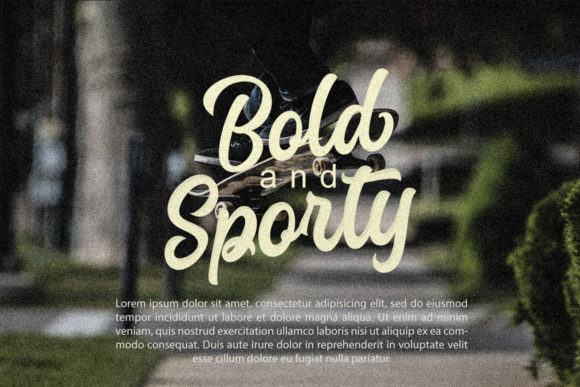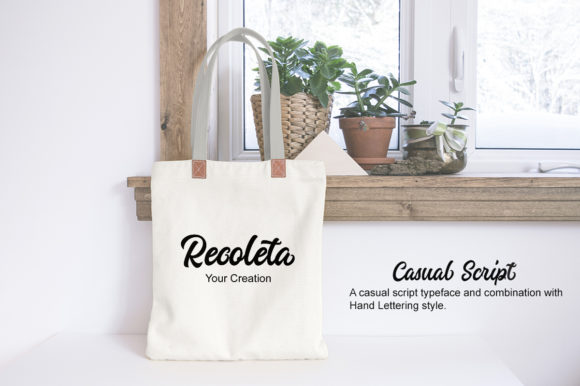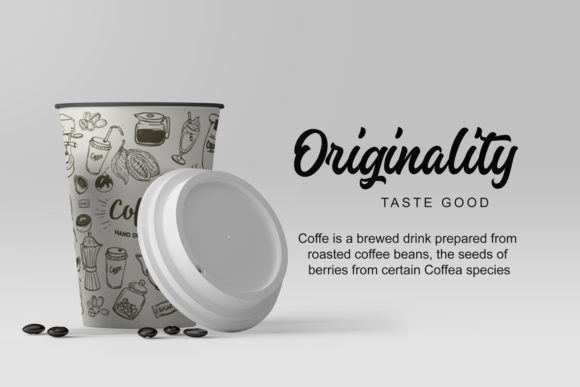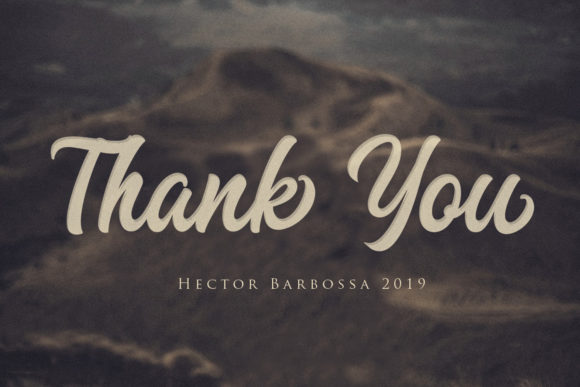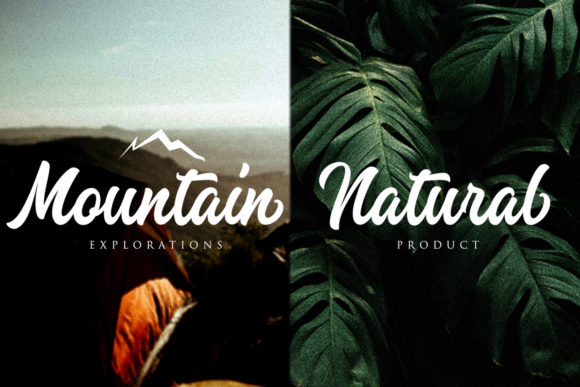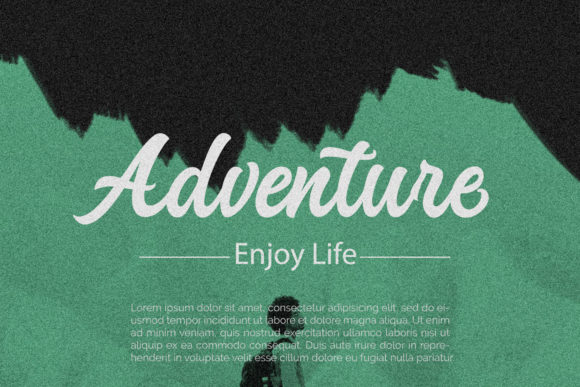
Hector Barbossa Font: A Casual Script Font with Unique Handwritten Charm
In the world of typography, fonts play a crucial role in conveying the tone and personality of a design project. For designers and crafters looking for a font that exudes a sense of casual elegance and handmade charm, Hector Barbossa is an excellent choice. This article will explore the features and benefits of the Hector Barbossa font, and how it can be used to elevate a variety of design projects.
What is Hector Barbossa Font?
Hector Barbossa is a casual script font that is designed to mimic the look and feel of handwritten text. Its unique and fluid strokes give it a distinctive charm that sets it apart from more traditional fonts. The font is perfect for designers and crafters who want to add a personal touch to their projects, whether it’s a logo, a poster, a website, or a craft project.
Key Features of Hector Barbossa Font
So, what makes Hector Barbossa font stand out from the rest? Here are some of its key features:
- Handwritten charm: Hector Barbossa font has a unique, handwritten look that gives it a personal and informal feel.
- Casual and elegant: The font strikes the perfect balance between casual and elegant, making it suitable for a wide range of design projects.
- Easy to read: Despite its handwritten nature, Hector Barbossa font is easy to read, even at smaller sizes.
- Versatile: The font can be used for a variety of projects, from logos and posters to websites and craft projects.
Benefits of Using Hector Barbossa Font
So, why should designers and crafters choose Hector Barbossa font for their projects? Here are some benefits:
- Adds a personal touch: The font’s handwritten charm adds a personal touch to any design project, making it more relatable and engaging.
- Stand out from the crowd: Hector Barbossa font is unique and distinctive, allowing designers and crafters to stand out from the crowd and create something truly memorable.
Using Hector Barbossa Font in Design Projects
So, how can designers and crafters use Hector Barbossa font in their projects? Here are some ideas:
- Logos and branding: Use Hector Barbossa font to create a unique and memorable logo that reflects your brand’s personality.
- Posters and flyers: Add a personal touch to your posters and flyers with Hector Barbossa font, making them more eye-catching and engaging.
- Websites and blogs: Use Hector Barbossa font to create a unique and memorable website or blog that stands out from the crowd.
- Craft projects: Add a handmade touch to your craft projects, such as handmade cards, gift tags, and scrapbooking pages.
In conclusion, Hector Barbossa font is a versatile and unique casual script font that is perfect for designers and crafters looking to add a personal touch to their projects. Its handwritten charm, ease of use, and cost-effectiveness make it an excellent choice for a wide range of design projects. Whether you’re creating a logo, poster, website, or craft project, Hector Barbossa font is sure to inspire and elevate your design.